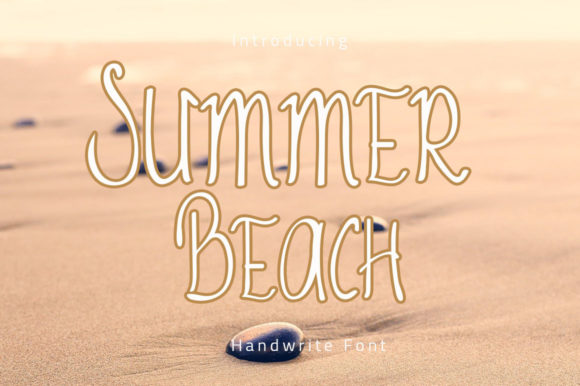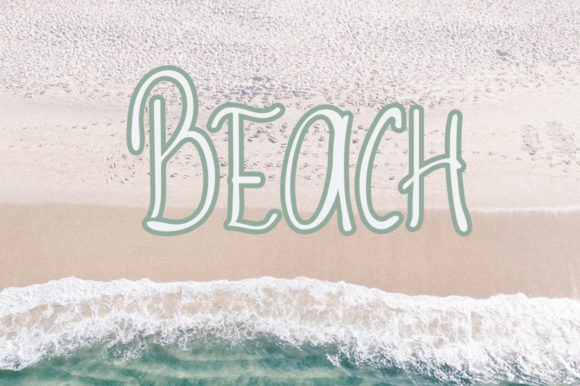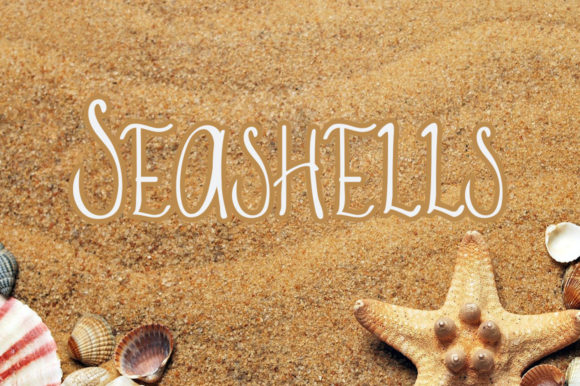
Summer Beach Font
About Summer Beach Font
Summer Beach is a relaxed and whimsical handwritten font. It is defined by smooth curves and is perfect for fashion branding or editorial designs. Add it confidently to your projects, and you will love the results.